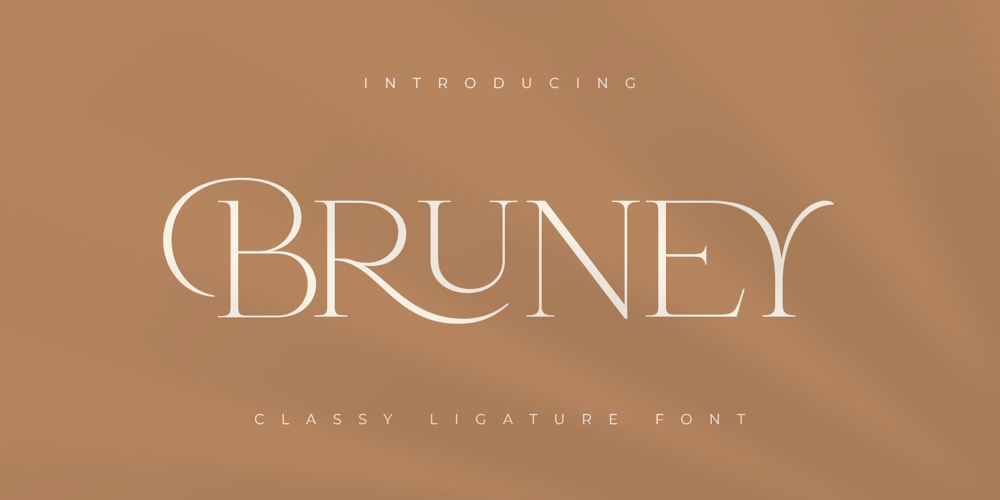
Bruney Font Family was designed by Zamroni Hamzah and published by Sensatype Studio. Bruney contains 1 styles and family package options. Bruney is a Classy and Unique font for brand and logo design.Based on our experience as a graphic designer who works for a lot of companies, we often are requested to design a logo in a unique style but with an elegant shape. So, we try to brainstorming and create this font to make the idea is going out. This is perfect for BRANDING and LOGO DESIGN. You will get classy, elegant, and certainly unique logos with this font.To make it look more classy and unique, here we prepared some ligatures:KA KI KU KE KO LA LI LU LE LO RA RI RU RE RO EB EH EP ER EK HB HP HK HR TB TD TE TF TP TR TT UB UD UF UK UM UN UP UR VA WA AB AD AR AV AW CK OO OC CA CY EA EB ED ES GB GH GK GB GR HB HP HR HK KB KD KS EY FY LS ME MU MB MD MF MH MK MP MR NN SO RS SB SD SE SF SP SY SR ST SS LL UN CSBruney is also included full set of: uppercase letters multilingual symbols numerals punctuation Wish you enjoy our font. 🙂